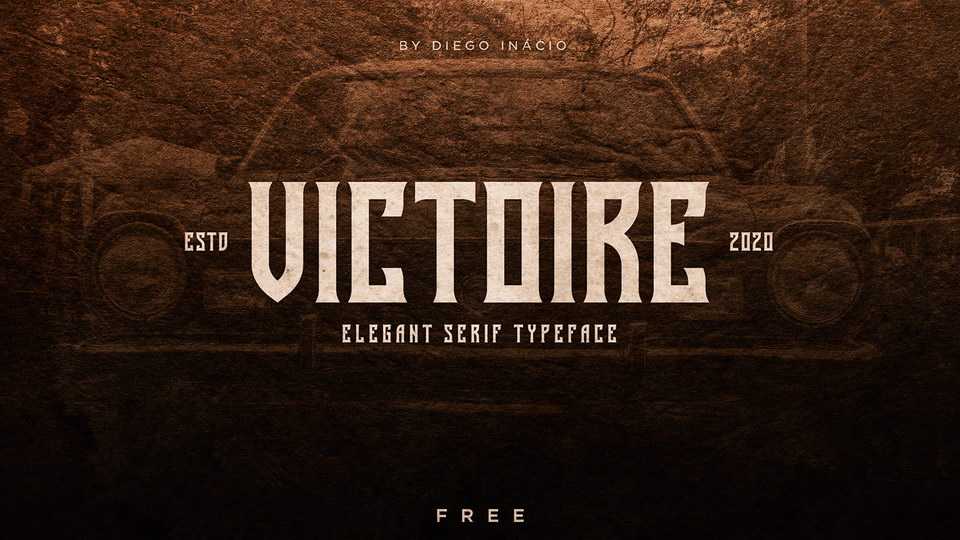
Download Victoire font, an elegant typography, inspired in the vintage style, and the serif used on it makes it more attractive and clear. Victoire font has the perfect style for classic brand designs and logos.